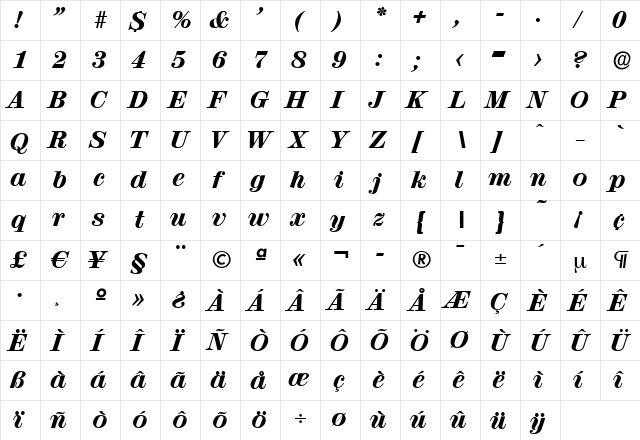
NormanBecker-Heavy Italic
Design Context for NormanBecker-Heavy Typeface
NormanBecker-Heavy takes a measured approach to typography — its balanced proportions and neutral character make it a reliable workhorse for both digital and print work. The slanted form adds forward momentum and visual energy.